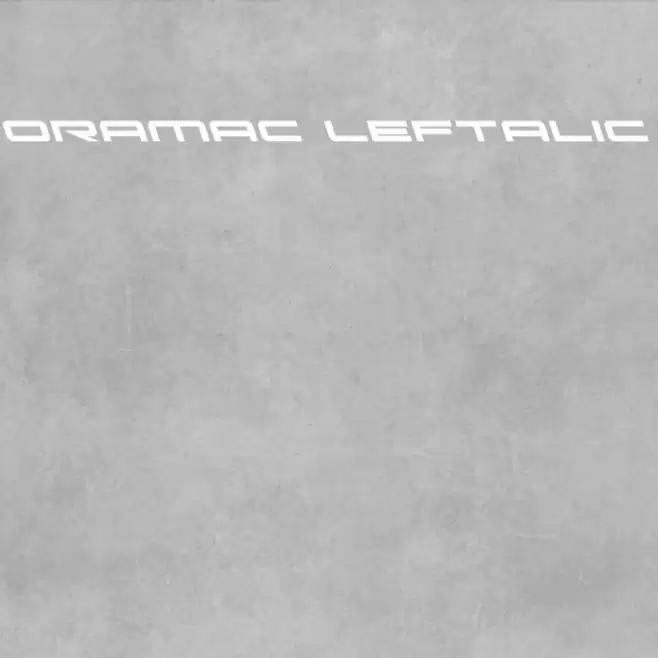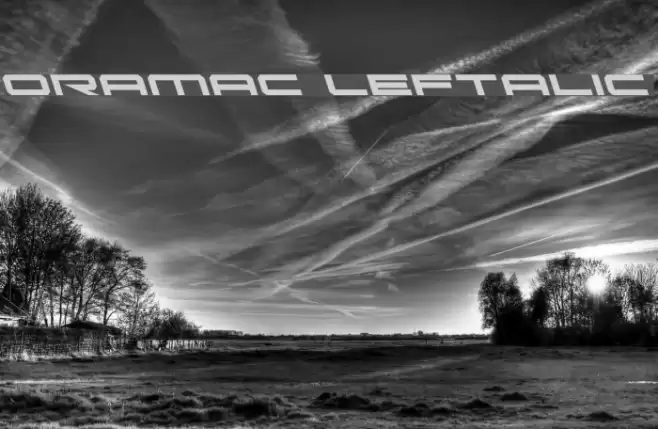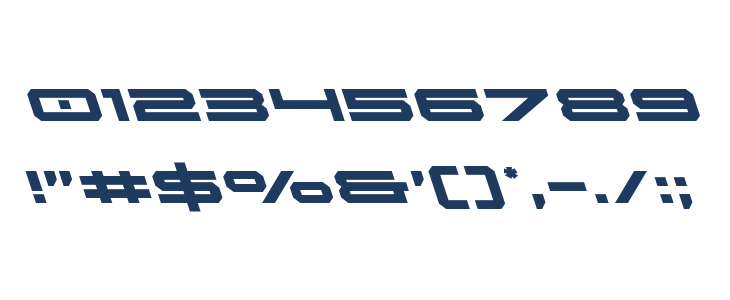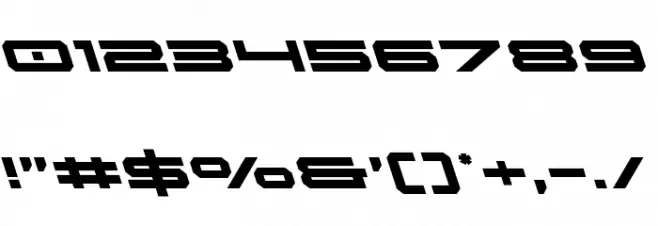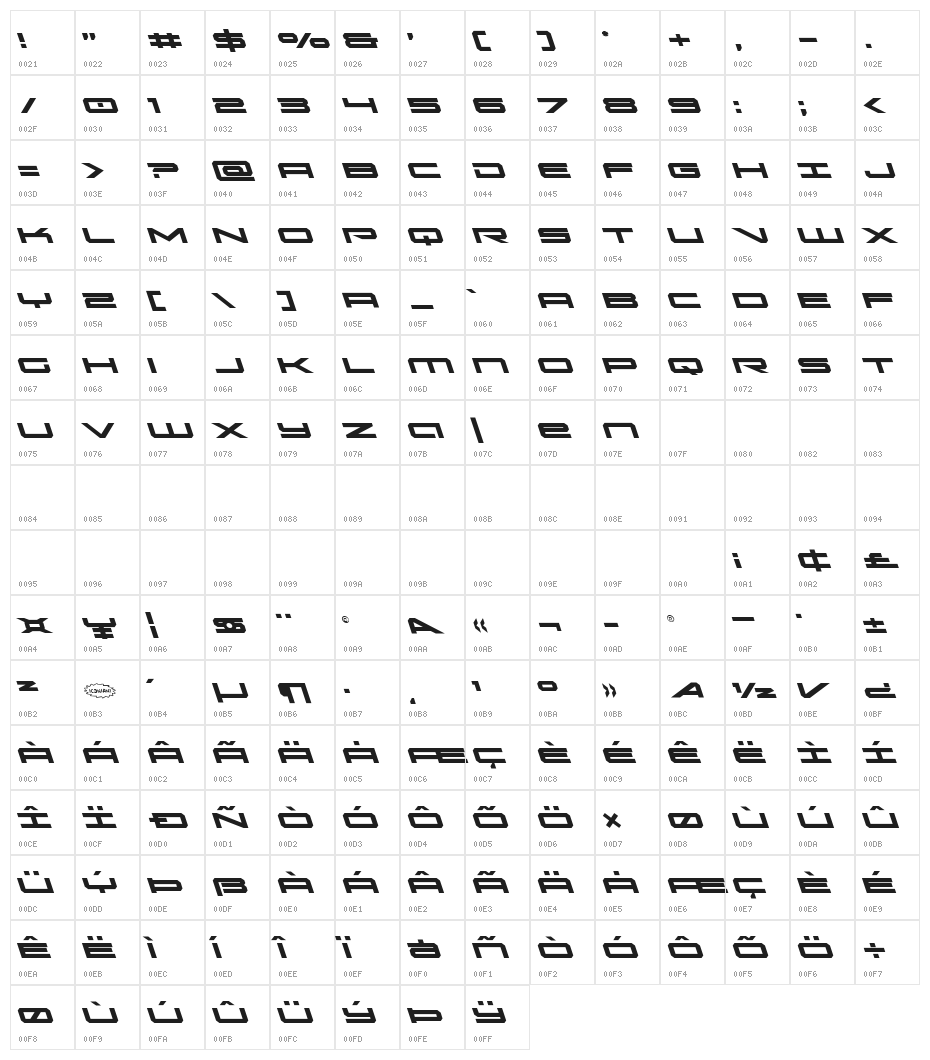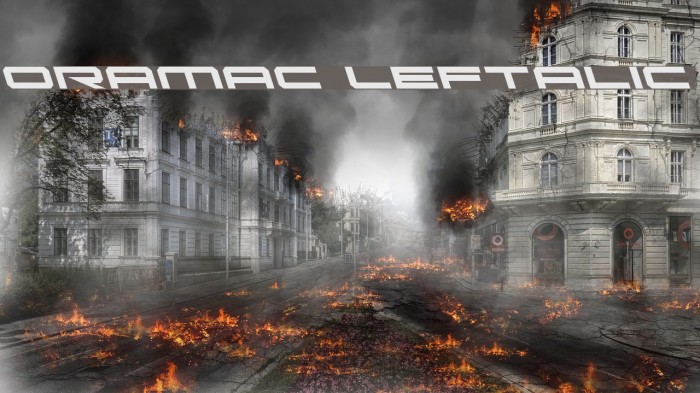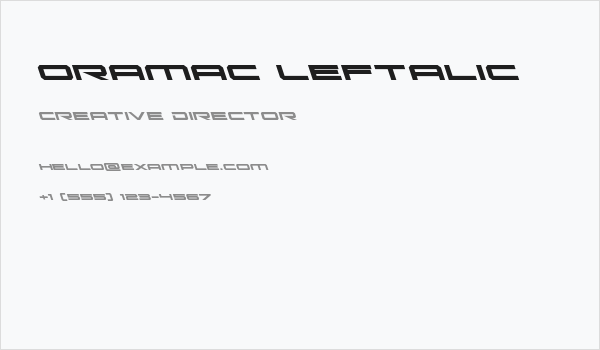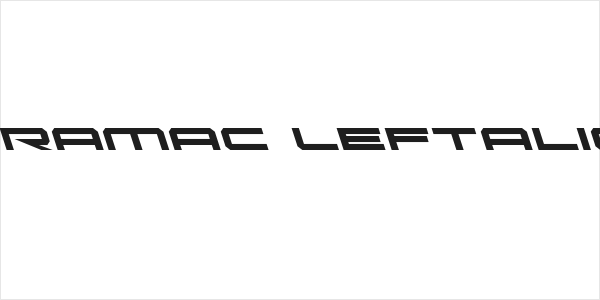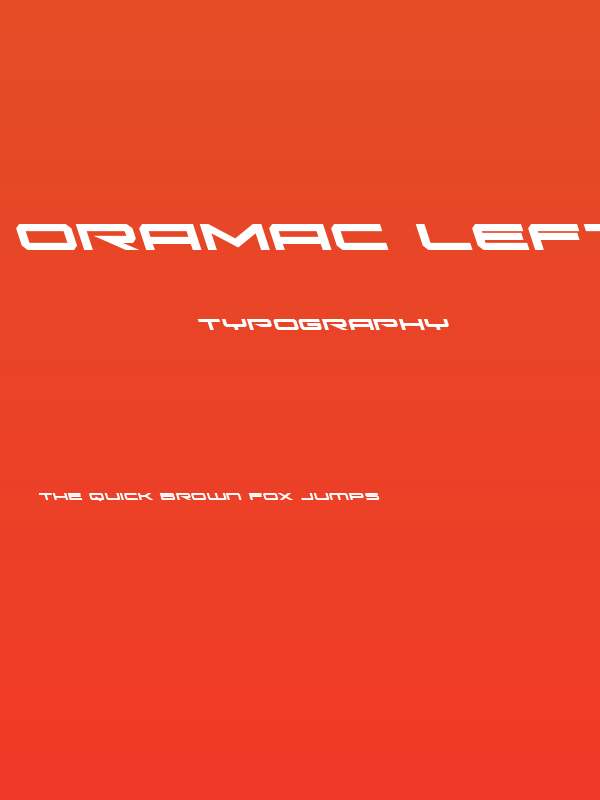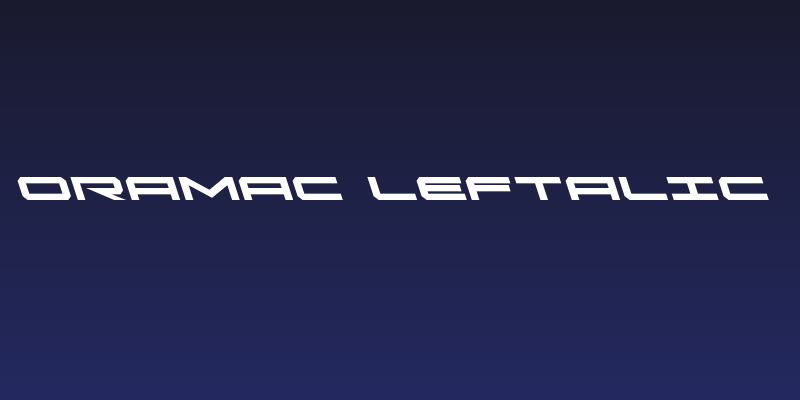
Oramac Leftalic Font
Oramac Leftalic Description
This font features a futuristic and angular design, characterized by sharp edges and a distinct slant to the left, giving it a dynamic and forward-moving appearance. The uppercase and lowercase letters maintain a consistent geometric style, with uniform stroke widths that contribute to a clean and modern aesthetic. The numerals and special characters are designed to match the overall angular theme, ensuring a cohesive look across all glyphs. This font's unique style makes it stand out, ideal for projects that require a bold and innovative visual impact.
A futuristic, angular font with a leftward slant and consistent geometric style from Uncategorized fonts.
- Proposed Projects: Ideal for technology branding, sci-fi movie posters, video game titles, and modern digital interfaces.